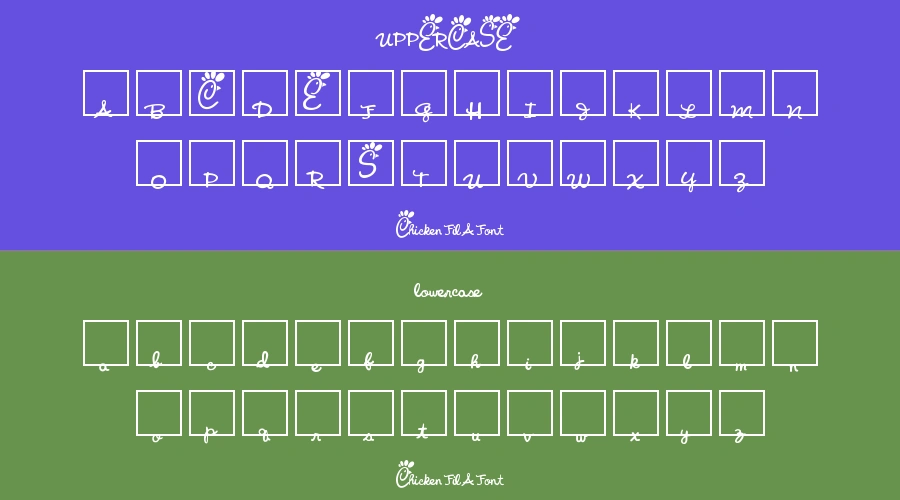
About Chicken Fil A Font
Chicken Fil A Font represents a sophisticated approach to type design, balancing bold expressions with visual comfort. Perfect for book design, this font family showcases impressive endurance and design innovation throughout its character set. Designers appreciate its versatility and reliability.
Designers will appreciate nuanced touches including elegant spacing and technical characters, adding sophistication to any project. These features become apparent in running text, where consistency matters most. The careful treatment of aperture size and institutional trust ensures optimal performance.